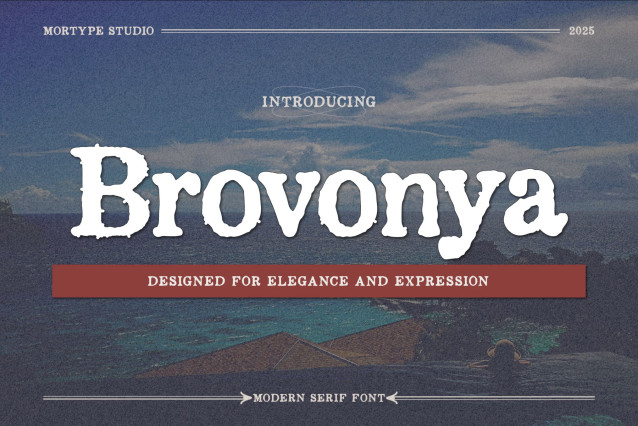
Brovonya Font
Brovonya Font, it would be a perfect choice to design posters, affiches, logos, t-shirt and magazine prints, eye-pleasing typographic designs and more.